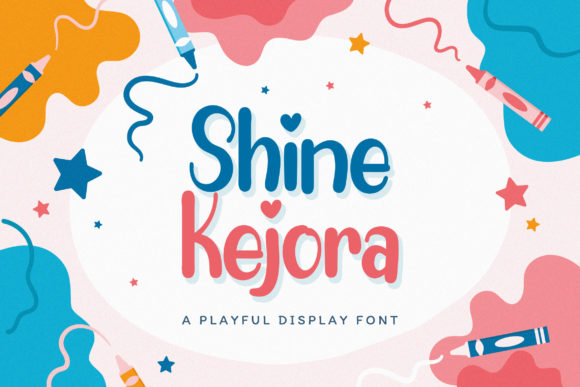
Spice up your kids' posters with the vibrant energy of the Shine Kejora font! Created by StringLabs, this playful and chunky lettered display font bursts with character, making it the perfect choice to ignite your little ones' imaginations.
Let their creativity soar as they explore the endless possibilities of this font. From lively school projects to eye-catching posters that decorate their walls, Shine Kejora transforms words into works of cheerful art. Each letter dances with a playful spirit, capturing the boundless joy and wonder of childhood.
Immerse your kids in a world of imagination where their dreams take shape through the vibrant strokes of the Shine Kejora font. Let their projects shine with a burst of color and personality, creating lasting memories that will warm your heart.